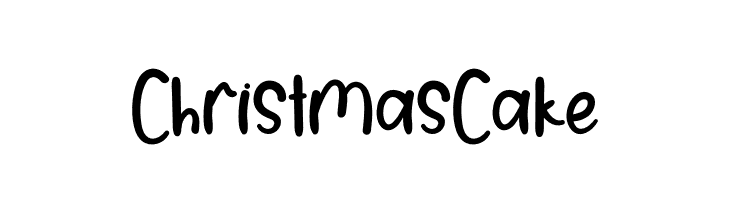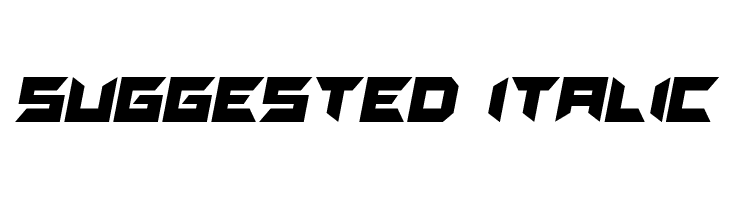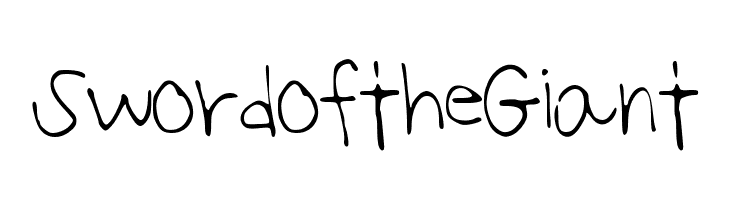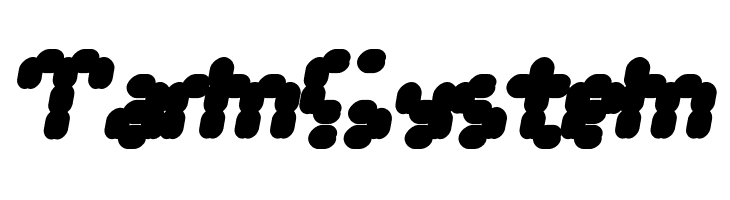
( Hanoded - David Kerkhoff - www.hanodedfonts.com )
A playful, handwritten font with a lively and informal style.
A bold, outlined italic font with sharp angles and a modern style.
( Vladimir Nikolic - www.coroflot.com/vladimirnikolic )
A bold, italic, and futuristic font with angular, geometric characters.
A symbolic collection of icons blending peace and conflict themes.
A bold, playful font with rounded edges and a vintage feel.
( Fonts by Rune Bjørnerås )
A modern, thin monospaced font with clean lines and consistent spacing.
( Fonts by FHFont )
A dynamic cursive script font with fluid, interconnected letters.